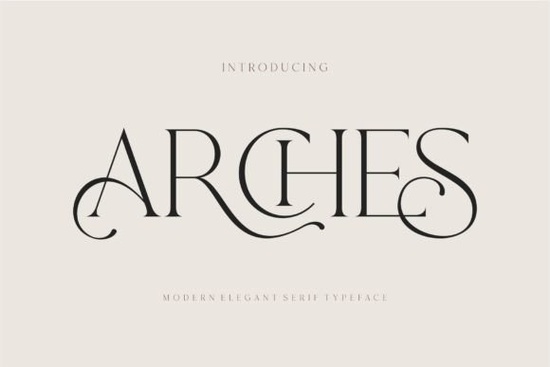
The Arches Font is a versatile and stylish serif typeface that brings a modern, minimalist feel to any design project. Inspired by the clean lines of a well-known logo, this font is ideal for a wide range of applications, from brochures and templates to branding materials and invitations. Its PUA encoding makes it easy to access all the unique glyphs and ligatures, giving designers more creative freedom without the hassle of complex setups.
Whether you're a designer, a crafter, or a small business owner looking to elevate your visual content, the Arches Font offers a professional look that’s both elegant and functional. It works well in print and digital formats, making it a valuable addition to any font library. The font's simplicity allows it to pair well with other typefaces, so you can create balanced and visually appealing layouts with ease.
What Makes Arches Font Stand Out?
The Arches Font is designed with clarity and style in mind. Its modern ligature features add a touch of sophistication, making it perfect for projects that require a refined aesthetic. Unlike some fonts that may feel too rigid or outdated, this one strikes a balance between traditional serif elements and contemporary design trends.
One of the key advantages of this font is its versatility. It can be used in a variety of contexts, from formal documents to creative projects. For example, it’s great for wedding invitations, business cards, or even social media graphics. The font’s legibility at different sizes ensures that it remains effective whether you’re working on a large poster or a small label.
How to Use Arches Font in Different Projects
For designers working on templates, the Arches Font provides a strong foundation that complements other design elements. It pairs well with bold sans-serif fonts for contrast, or with other serif fonts for a cohesive look. If you're creating a brochure, using this font for headings can help draw attention while maintaining a polished appearance.
Crafters and print-on-demand sellers will appreciate the font’s adaptability. Whether you're designing custom t-shirts, mugs, or stationery, the Arches Font adds a professional touch that can set your products apart. Its clean lines make it suitable for both minimalist and more intricate designs.
Small businesses looking to build a brand identity can benefit from using this font in logos, website headers, or marketing materials. It gives a sense of reliability and elegance, which can help establish trust with customers.
Final Thoughts
The Arches Font is a reliable choice for anyone looking to add a touch of class to their work. Its combination of modern design and traditional serif elements makes it adaptable across various projects. Whether you're working on a personal craft, a business venture, or a creative endeavor, this font can help you achieve a polished and professional result.
Take some time to experiment with how it looks in different contexts. Try using it in headings, body text, or as part of a larger design scheme. You might find that it becomes one of your go-to fonts for many of your projects.
Remember, the right font can make a big difference in how your message is received. With the Arches Font, you're not just choosing a typeface you're choosing a tool that supports your creative vision.